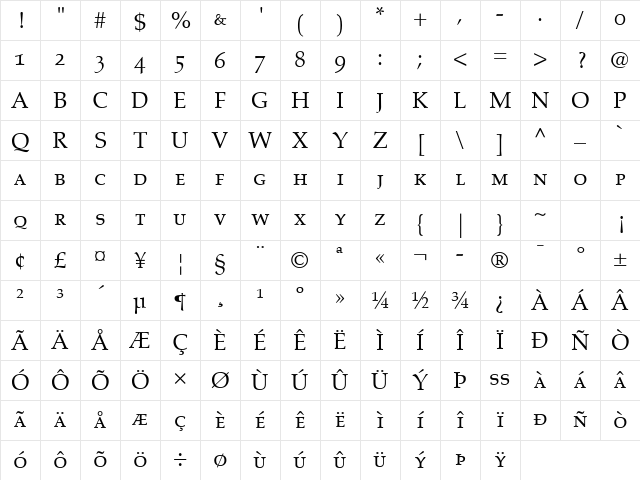
Aldus RomanSC Regular
Complete Aldus RomanSC Regular glyph index. Displaying only characters natively supported by Aldus RomanSC Regular font.
Design Context for Aldus RomanSC
Aldus RomanSC is a composed and adaptable typeface that performs quietly and consistently across a wide range of design contexts.